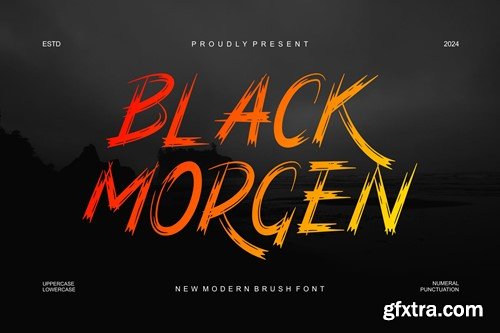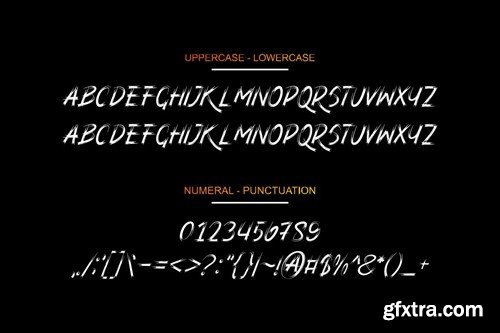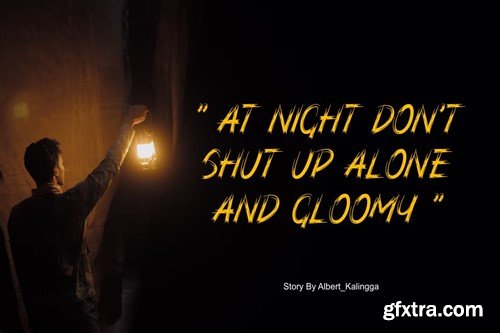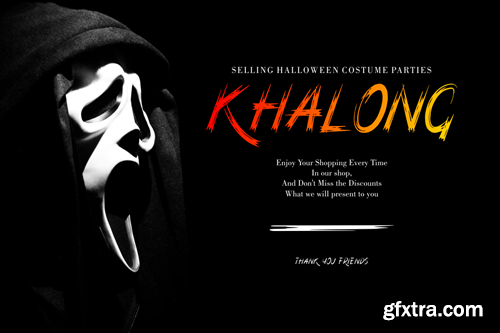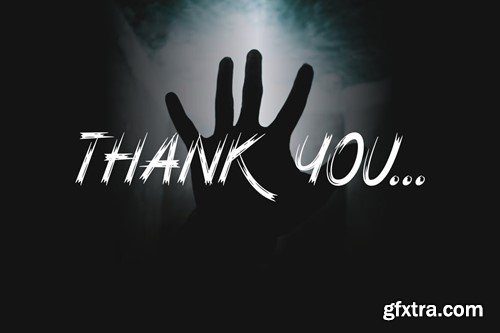
Black Morgen Font
Introducing our new product Black Morgen Font - Modern Font is a bold and authentic display font. The font is suitable for any branding project like logo, esport, and many more. outstanding in a wide range of contexts. availlable